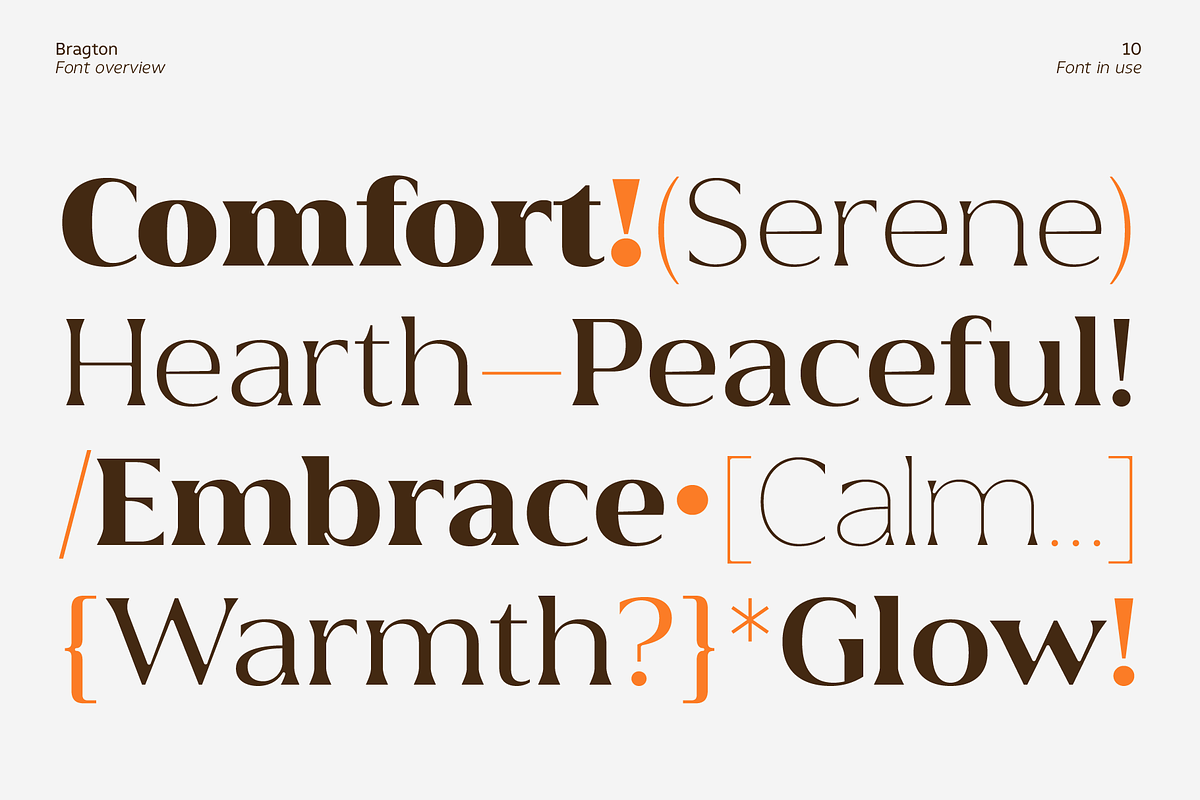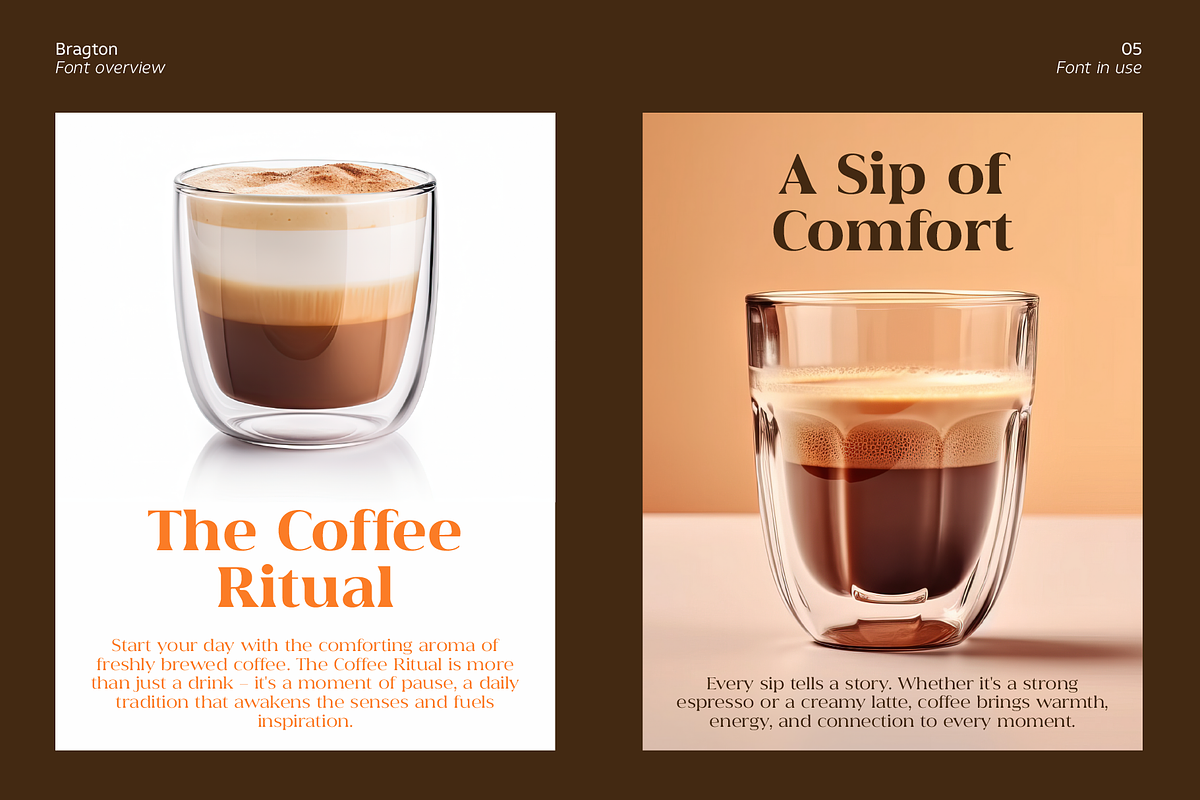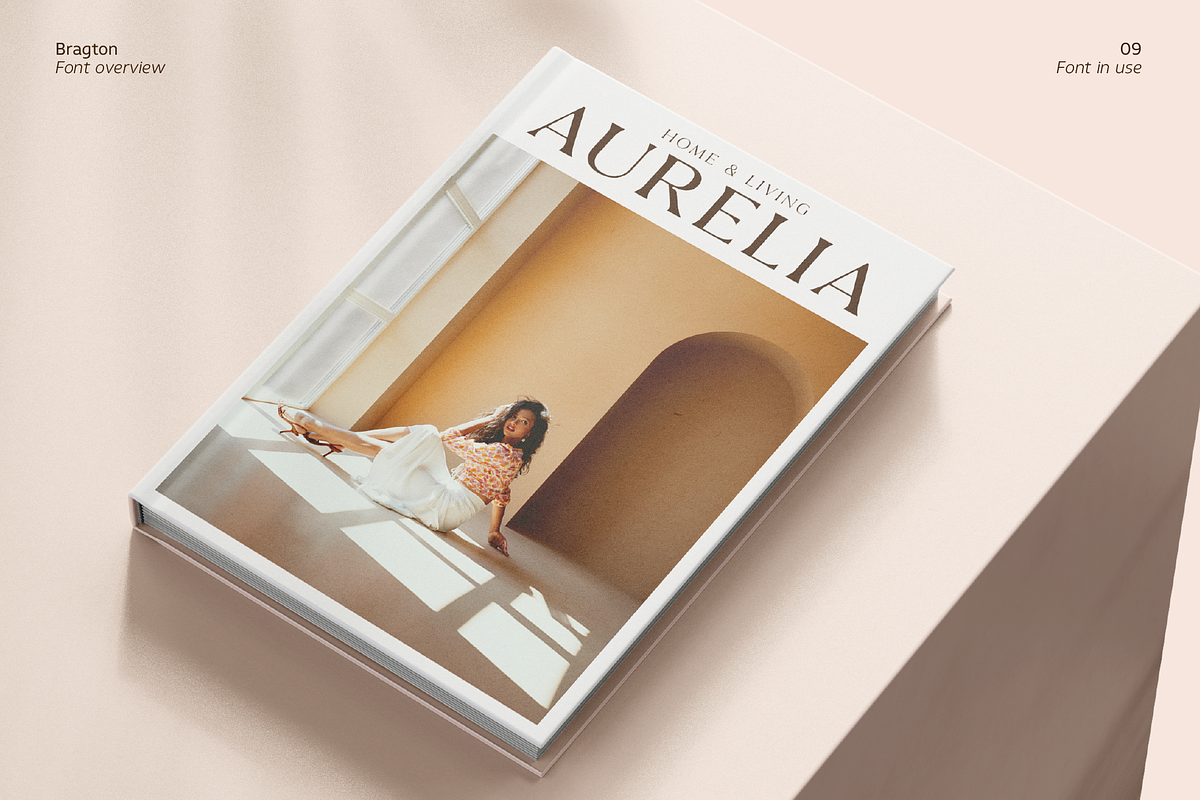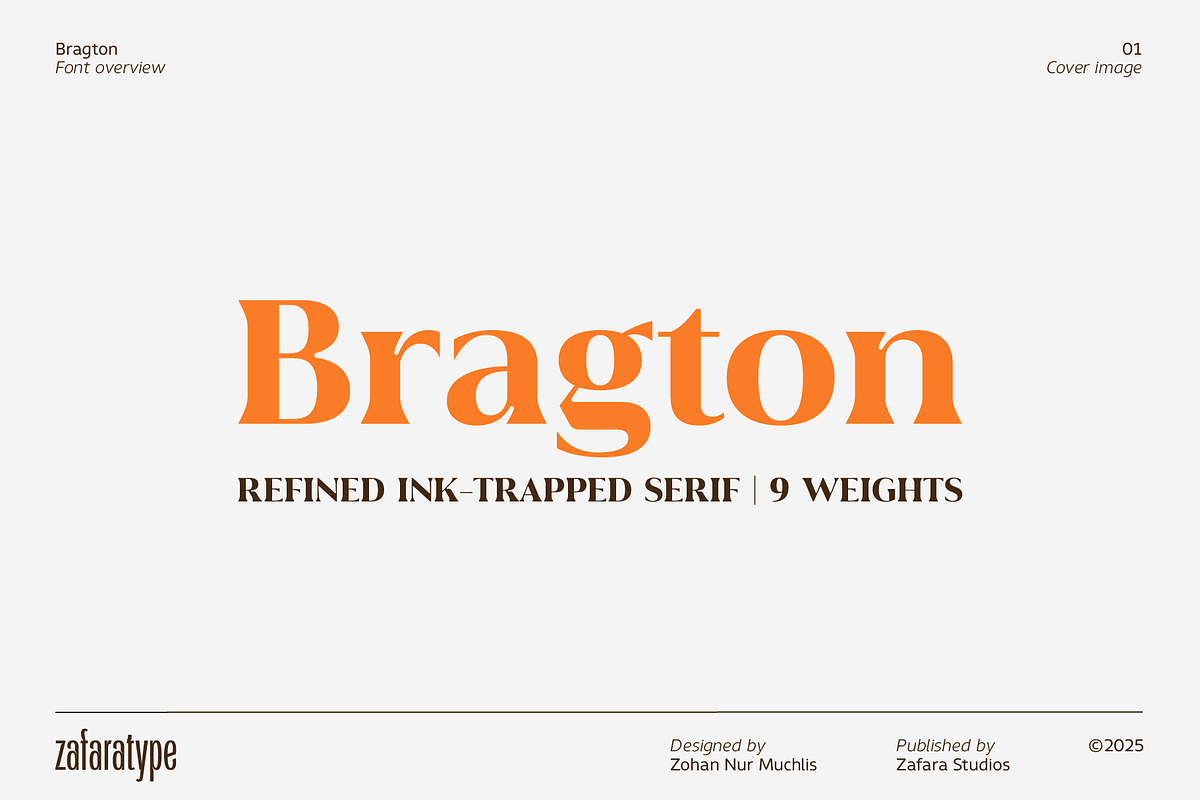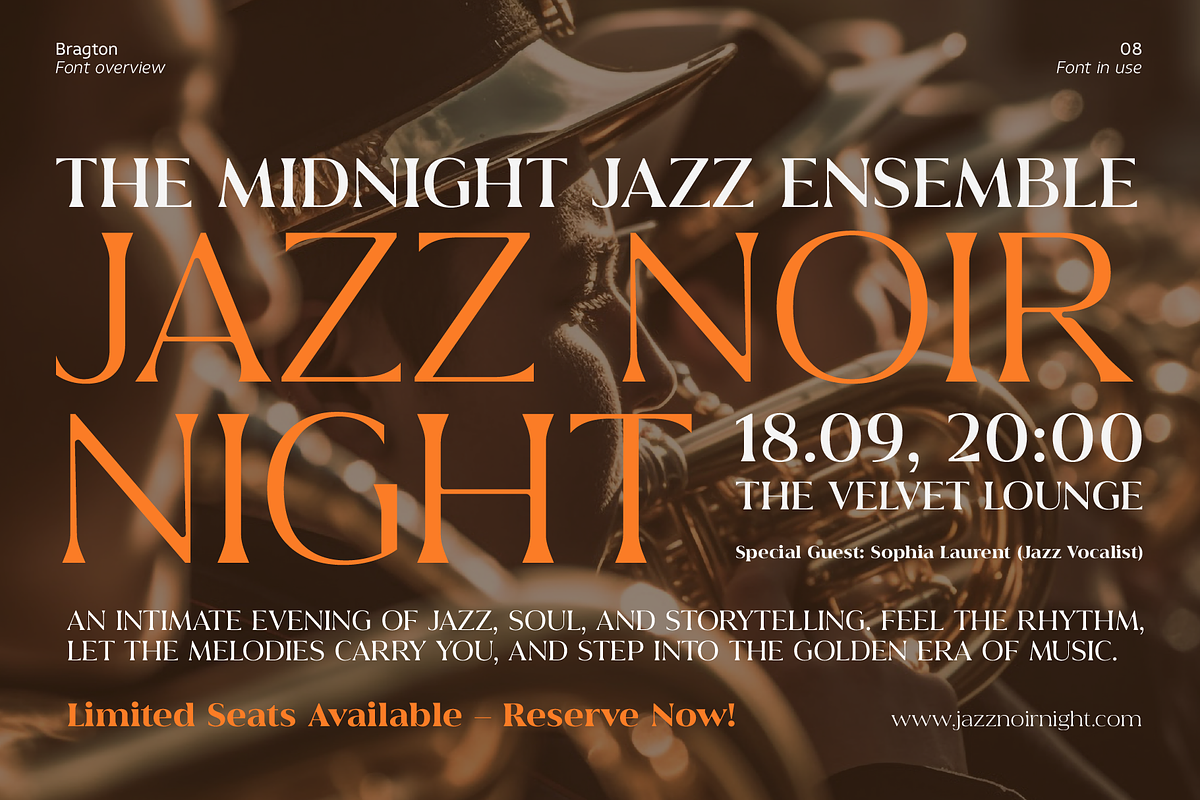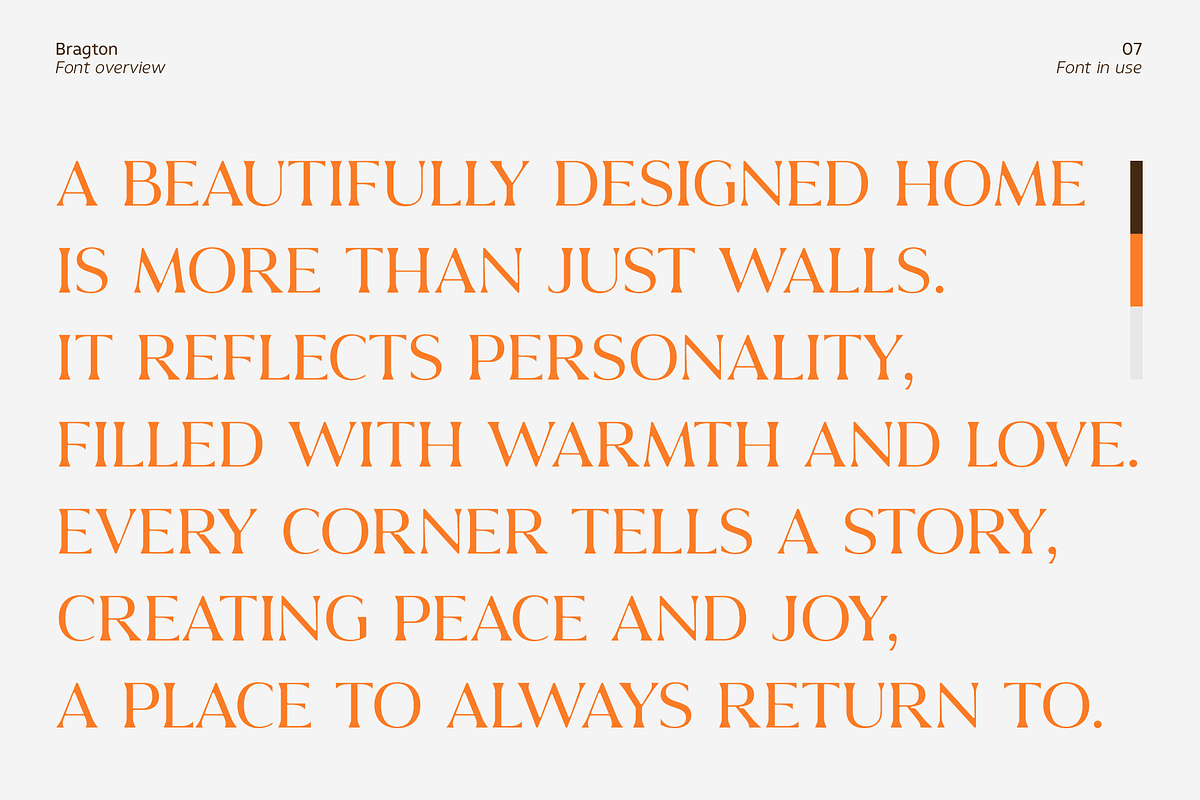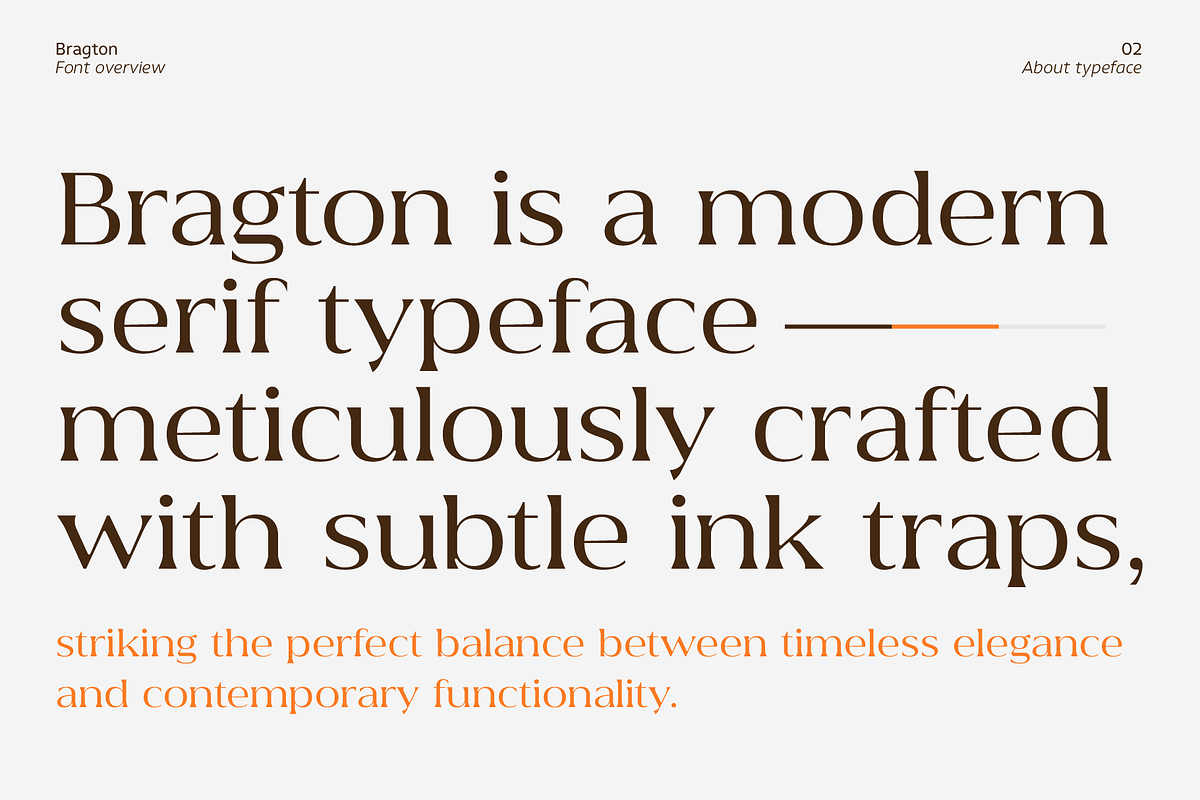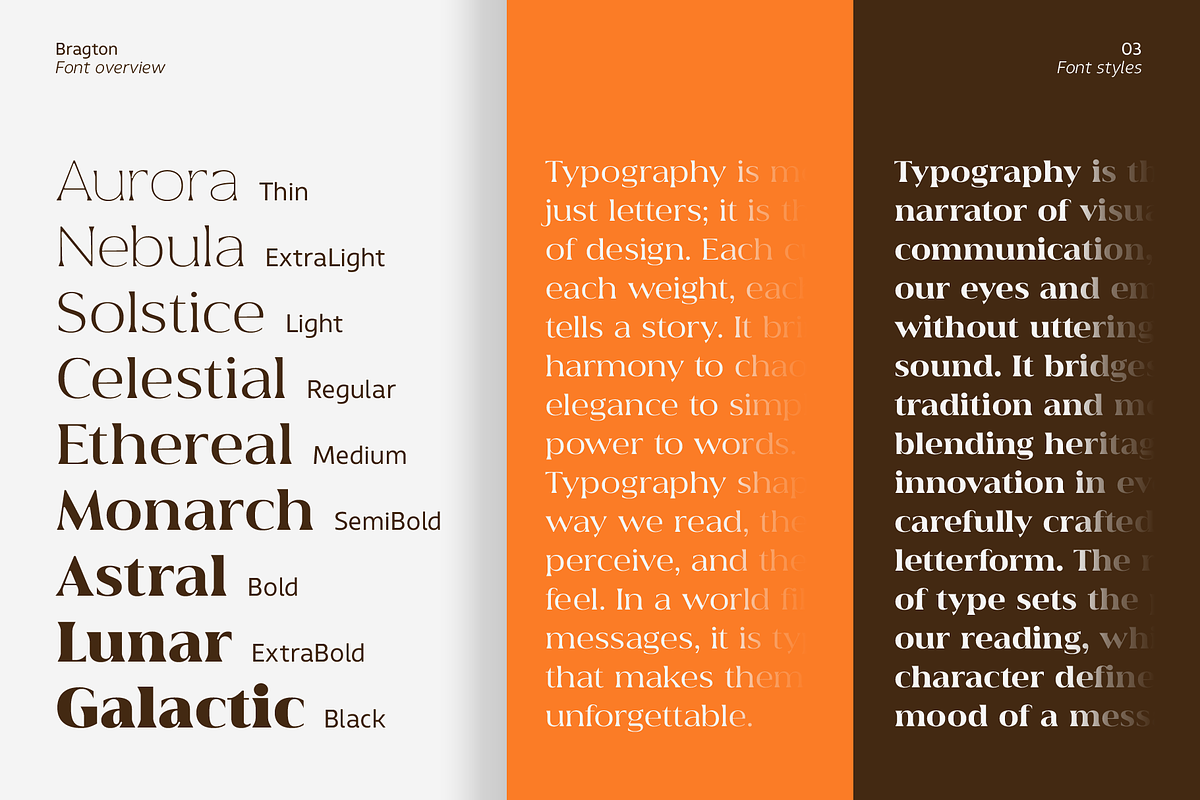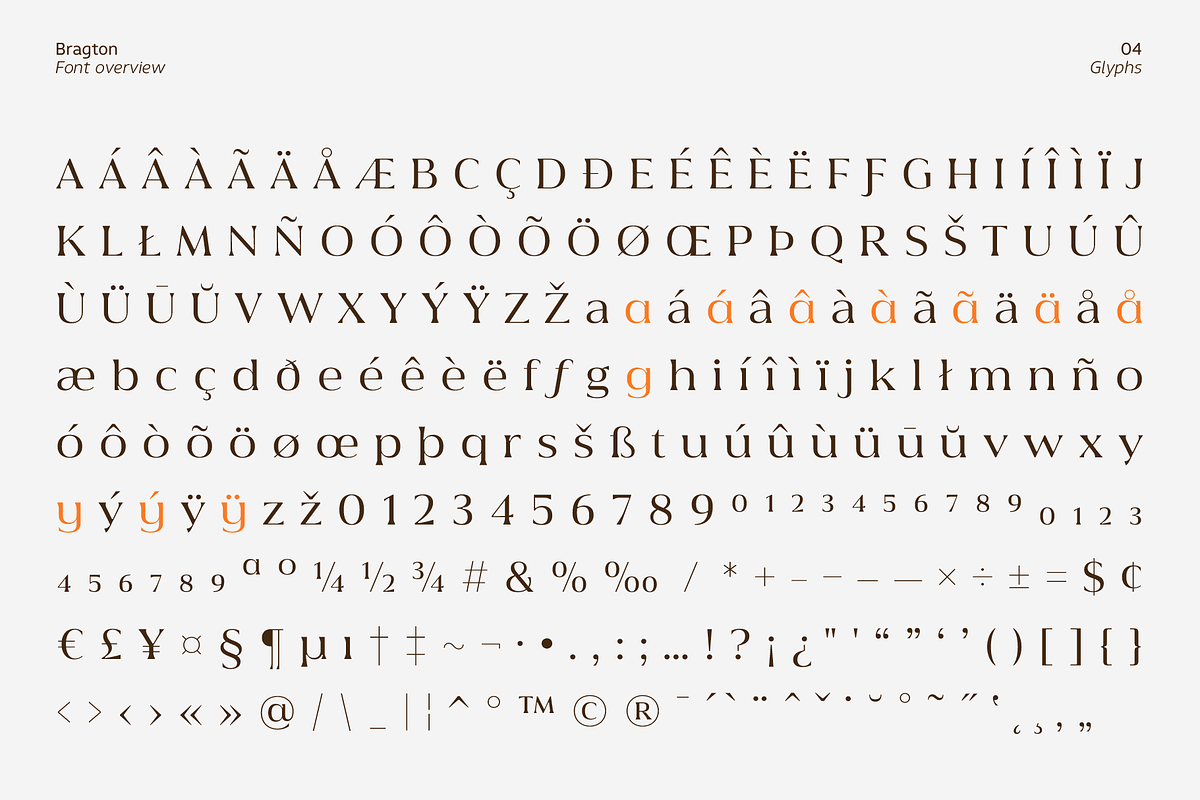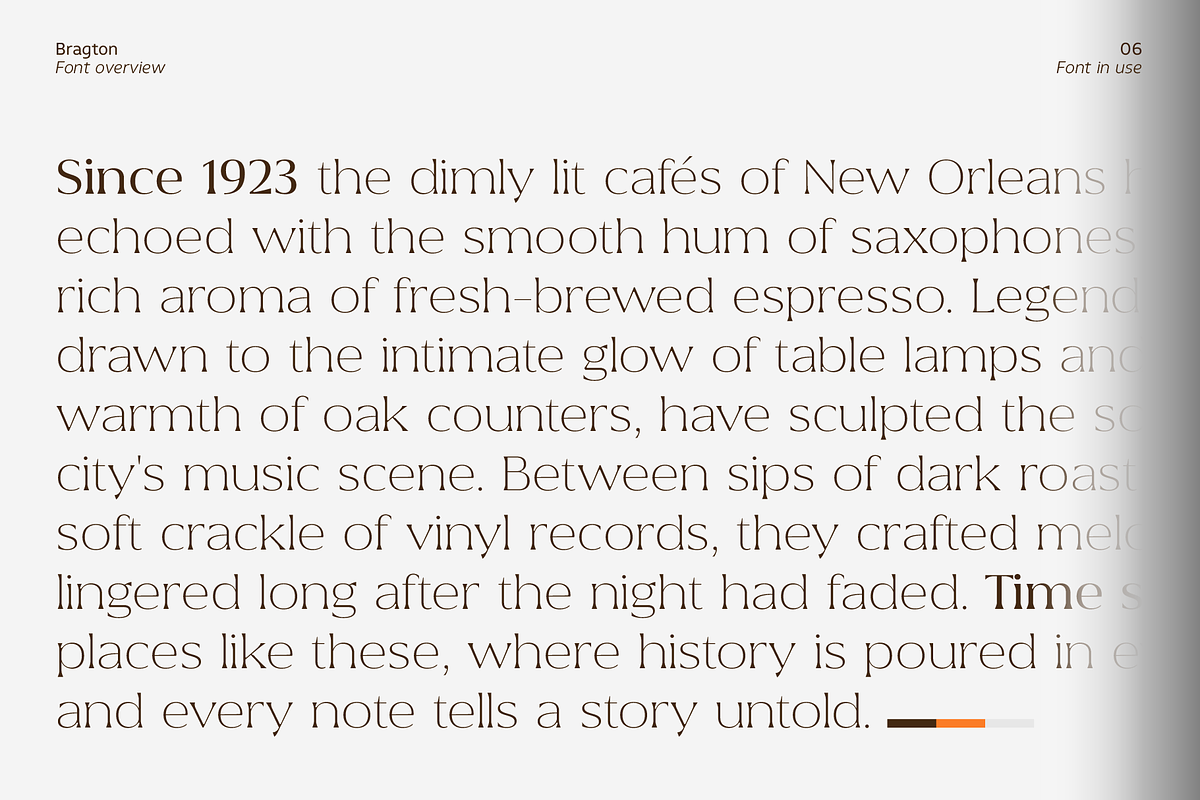
Bragton
Bragton is a modern serif typeface meticulously crafted with subtle ink traps, striking the perfect balance between timeless elegance and contemporary functionality. It offers 9 weights (Thin, ExtraLight, Light, Regular, Medium, SemiBold, Bold, ExtraBold, and Black), ensuring versatility for various design projects—from brand identities and editorial layouts to packaging, signage, and digital media.
Each character is thoughtfully designed for optimal legibility at small sizes while showcasing distinctive details at larger scales. The refined ink traps not only add visual appeal but also enhance clarity, making Bragton suitable for both print and digital applications. This typeface comes with extensive multilingual support and OpenType features (including alternates), empowering you to create cohesive and compelling typography across different languages.
- 9 weights (Thin to Black) for maximum versatility
- Subtle ink traps for improved clarity and distinctive aesthetics
- OpenType features (including alternates)
- Extensive multilingual support
- Ideal for branding, editorial, packaging, signage, and digital media
Whether you’re designing attention-grabbing headlines or comfortable body text, Bragton provides the sophistication and functionality needed to elevate your design projects. Embrace the perfect blend of modern style and classic charm with Bragton.